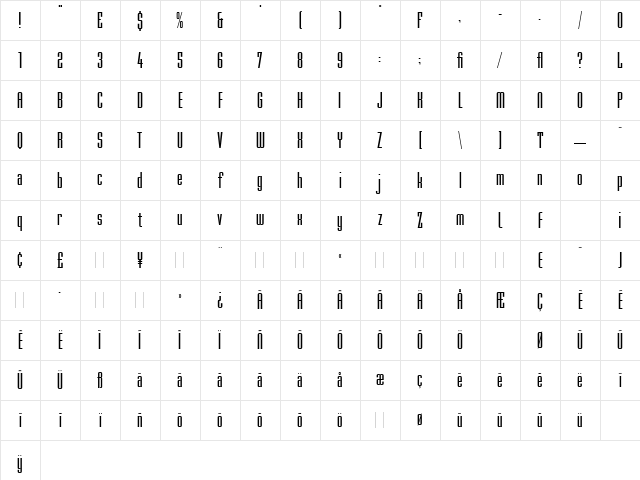
Complete Mekanik LET Plain glyph index. Displaying only characters natively supported by Mekanik LET Plain font.
Mekanik LET is a composed and adaptable typeface that performs quietly and consistently across a wide range of design contexts.